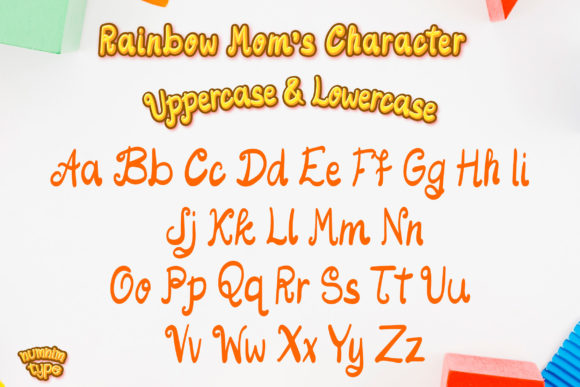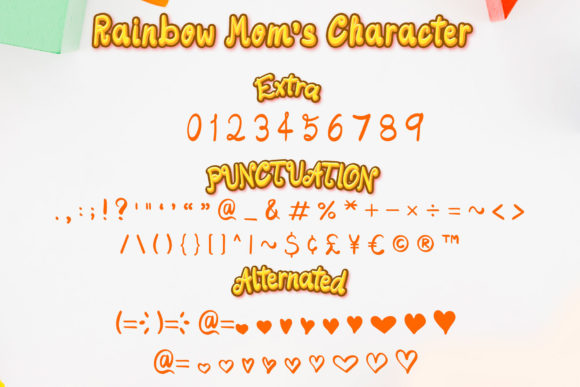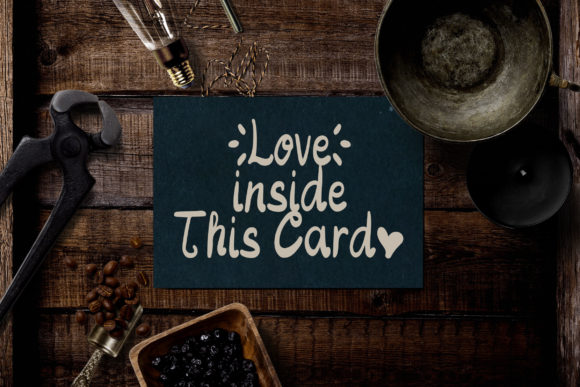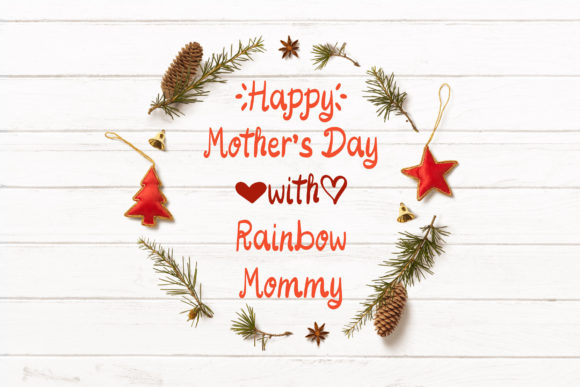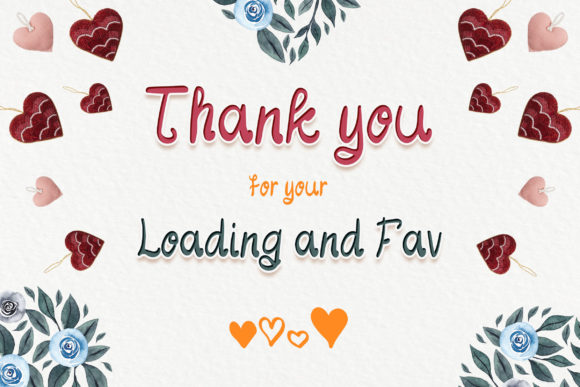
Introduction to Rainbow Mom Font
Remember the moment when your child’s artwork brightened up your entire day, with its imperfect lines and vibrant colors? As a designer, you can capture that same magic with the Rainbow Mom Font, a joyful and friendly handwritten font that features cute doodle elements.
This delightful font is a treasure trove for designers, offering a sweet and versatile style that’s perfect for creating lovely designs for schools, kids, and even creative projects. With its transparent background and high-quality design, it’s an invaluable resource for any design project.
Key Features of Rainbow Mom Font
- Unique and colorful design, perfect for creative projects and adding a playful touch.
- Designed with a fun and whimsical feel, perfect for adding a pop of color and personality to your designs.
Honest Review: Rainbow Mom Font
I recently stumbled upon the Rainbow Mom Font, and I must say it’s a great addition to any designer’s toolkit. This font is perfect for creative projects that require a touch of whimsy and playfulness.
One of the standout features of this font is its versatility. The Rainbow Mom Font comes with a transparent background, making it easy to use as a design resource for a variety of projects.
- ⚠️ Limited character set, which may not be ideal for projects that require a large number of fonts
- ⚠️ Not ideal for use in small font sizes, as it may become difficult to read
Overall, I’m impressed with the Rainbow Mom Font. It’s a great design resource that can add a pop of color and personality to any project. With a little creativity, the limitations can be easily worked around.
Tips for Getting the Most Out of Rainbow Mom Font
Use Rainbow Mom Font for creative projects, such as social media graphics, posters, and flyers. You can also use it for design resources, like business cards and brochures. To get the most out of it, download the high-quality font file and use it in your favorite design software. Experiment with different font sizes, colors, and styles to create unique and eye-catching designs.
Use Rainbow Mom Font for: birthday party invitations, wedding decorations, holiday cards, and other festive occasions. You can also use it for branding and marketing materials, like logos and business cards. The font’s playful and colorful design makes it perfect for any creative project that needs a fun and lively touch.